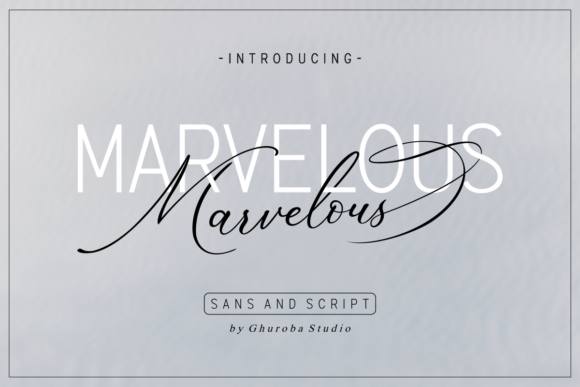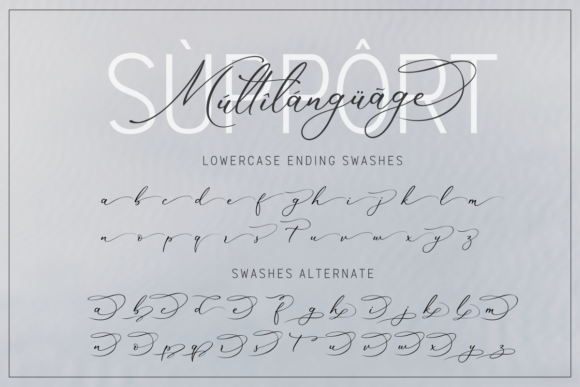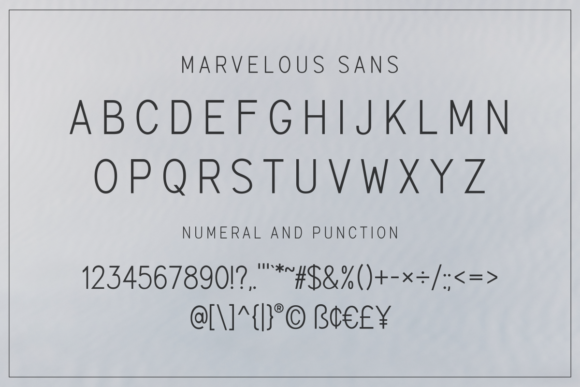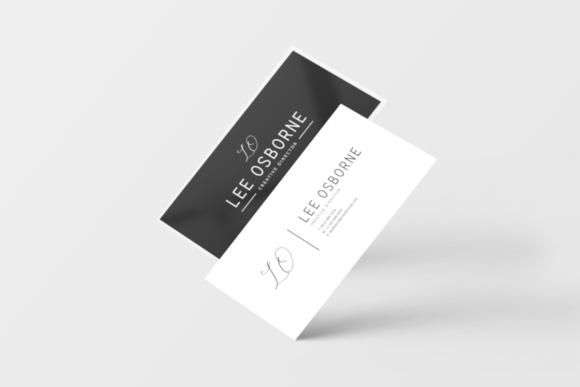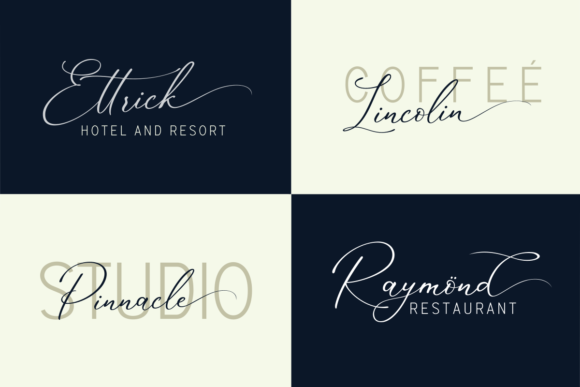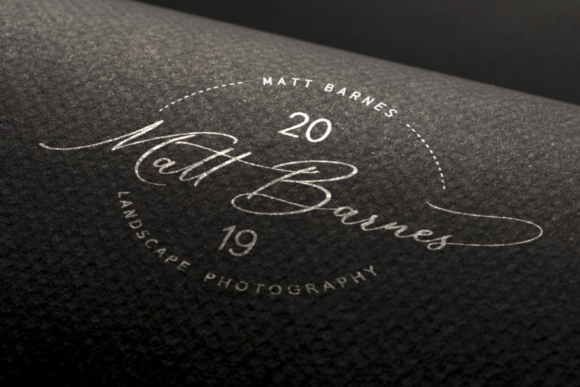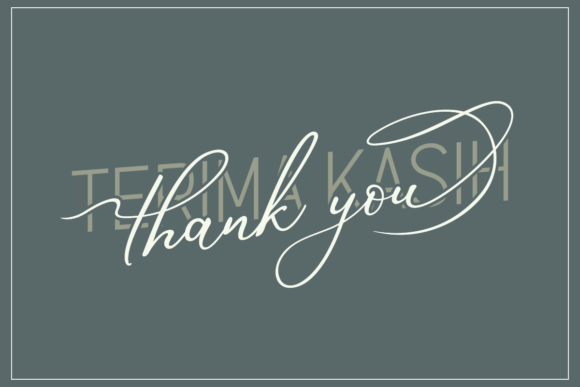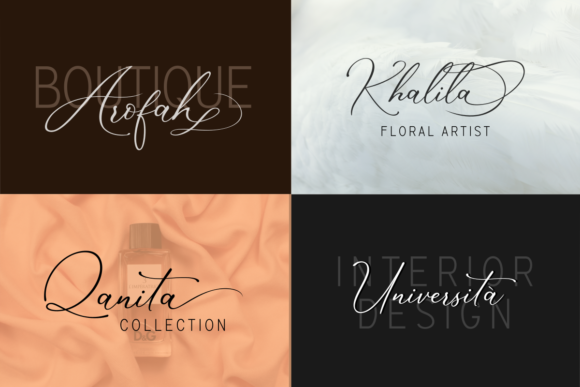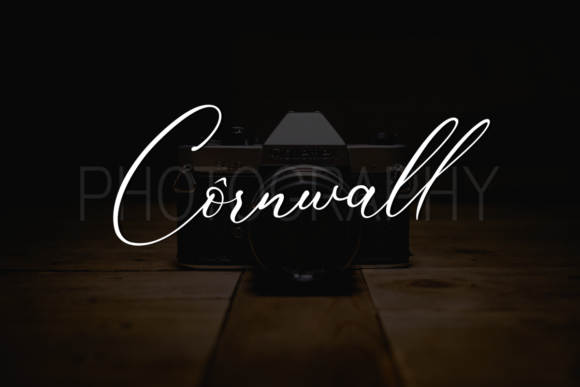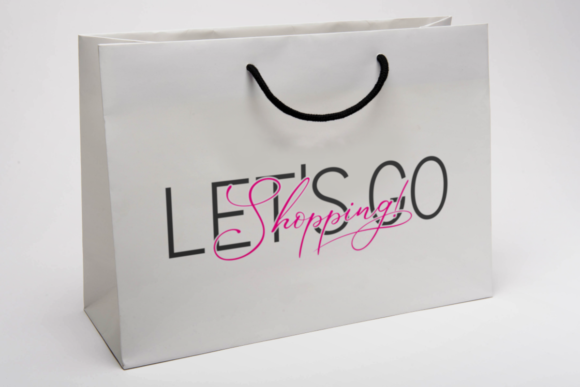
Marvelous Duo Font
About Marvelous Duo Font
The Marvelous is a stunning pair of beautiful script and sans fonts, which are designed to complement each other with elegant beauty and a contemporary style.
It’s perfect for branding, invitations, business cards, weddings, logo, quotes, product packaging and much more.